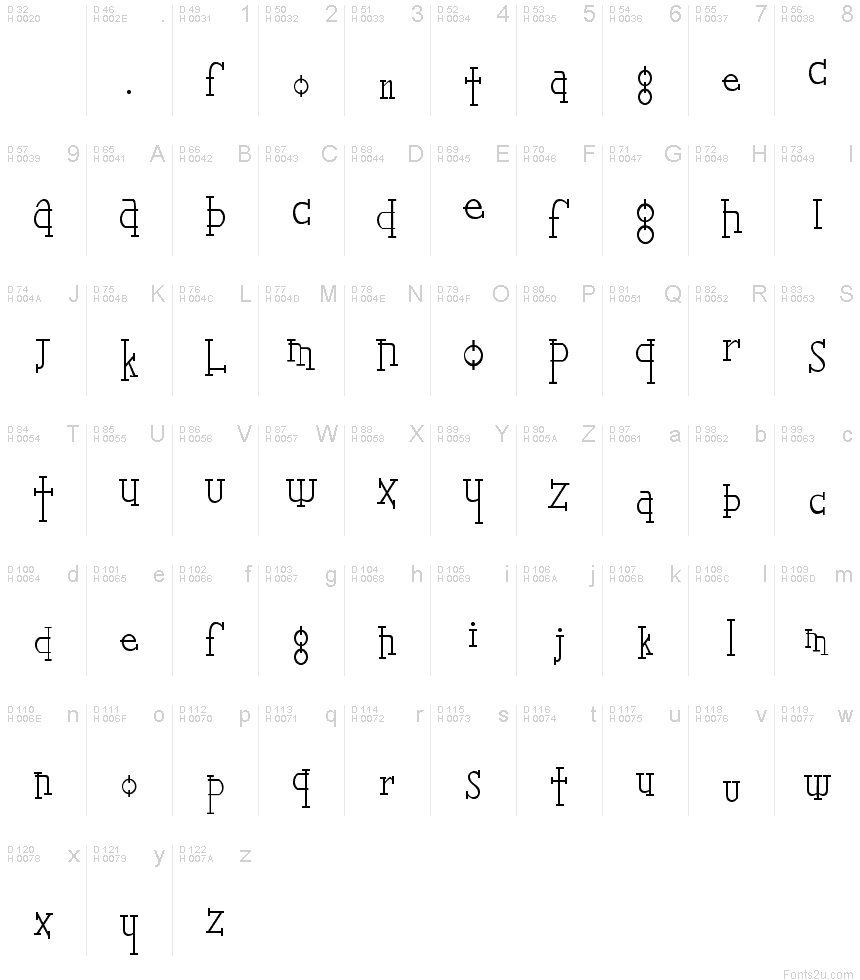
Leger
Leger Light
Leger Light is a simpler (and later version) of Leger Heavy--both designed by Joanna Briggs. Named after the French artist Leger, Leger Heavy was named after the French artist Leger. While that decorative font was designed specifically for a book, Leger Light is only slightly more practical for everyday use.